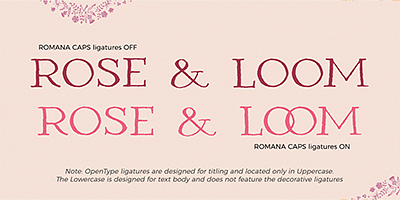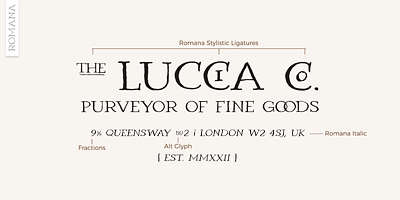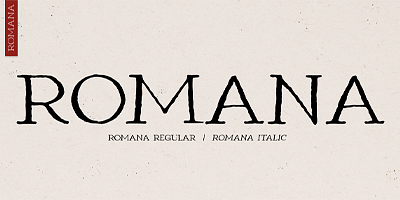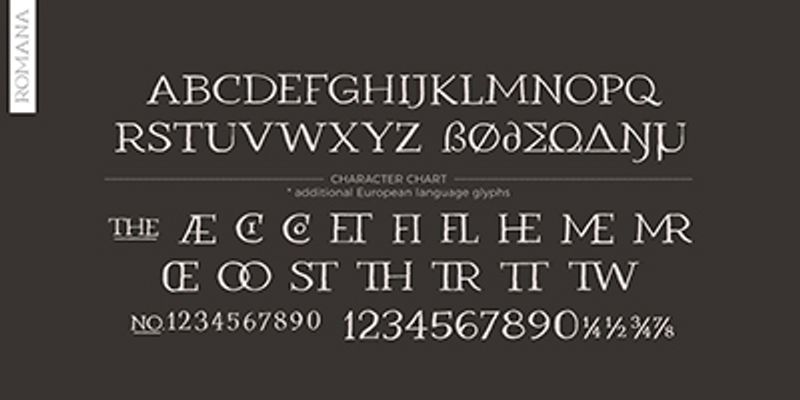
Romana was inspired by carved Roman inscriptions. It was hand drawn with a dip pen and ink onto paper. The font maintains a handcrafted feel with irregularities and quirks. It’s simplicity makes it a stable choice to pair with more decorative calligraphy fonts with a classic flair.
Features: Standard & discretionary ligatures, fractions, ordinals and bonus glyphs. The uppercase is designed for titling and features decorative ligatures, the lowercase for body text.